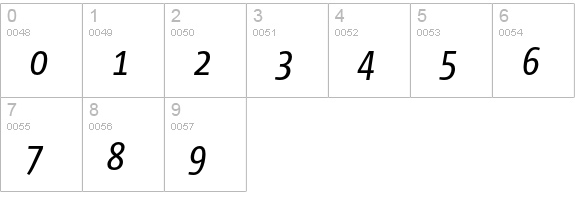
Corpid Cd Italic is a distinctive, italic variant in the Corpid typeface family \xE2\x80\x94 well suited to design and typography projects.
Corpid Cd Italic is a sleek and modern font that exudes sophistication and elegance. With its slanted and stylish italics, this typeface brings a touch of flair to any design project. The delicate curves and confident lines of Corpid Cd Italic make it a versatile choice for a wide range of applications, from branding to editorial design. What sets Corpid Cd Italic apart is not only its aesthetic appeal but also its accessibility. This font is available for free download at FontsMarket.com, making it easy for designers and creatives to access and use in their projects without any cost. Whether you're looking to add a touch of sophistication to your website, elevate your print materials, or create eye-catching social media graphics, Corpid Cd Italic is a fantastic choice that won't break the bank. Download it today and see the difference it can make in your designs.